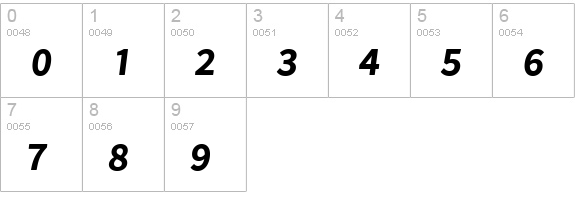
Falling Sky Bold Oblique Font Details
Falling Sky Bold Oblique is a strong, high-contrast, italic variant in the Falling typeface family \xE2\x80\x94 well suited to headlines, attention-grabbing titles, and strong calls-to-action.
Falling Sky Bold Oblique is a stunning and eye-catching font that effortlessly combines boldness with elegance. This font exudes a sense of sophistication and modernity, making it the perfect choice for any design project that requires a touch of boldness and creativity. With its slanted and italicized style, Falling Sky Bold Oblique adds a unique and dynamic element to any typographic composition. The letters flow seamlessly, creating a sense of movement and energy that captivates the viewer's attention. Whether used for headlines, logos, posters, or branding materials, this font never fails to make a powerful statement. But what sets Falling Sky Bold Oblique apart is that it is not only aesthetically pleasing, but also freely available to download at FontsMarket.com. This means that designers and enthusiasts alike can access this exceptional font without any cost, allowing for endless possibilities and opportunities to experiment with their creative visions. The versatility of Falling Sky Bold Oblique is another reason why it has become a favorite among designers. It effortlessly adapts to various design styles, from sleek and minimalistic to bold and vibrant. Its clean lines and precise curves ensure legibility even at smaller sizes, making it suitable for both print and digital media. Whether you're working on a branding project, a magazine layout, or a website design, Falling Sky Bold Oblique will undoubtedly elevate your work to new heights. Its boldness and unique style will leave a lasting impression on your audience, making your designs stand out from the crowd. So why wait? Download Falling Sky Bold Oblique for free at FontsMarket.com and let your creativity soar like never before. With this font in your arsenal, you have the power to create stunning and impactful designs that leave a lasting impression. Don't miss out on this opportunity to enhance your design projects with this elegant and freely available font.